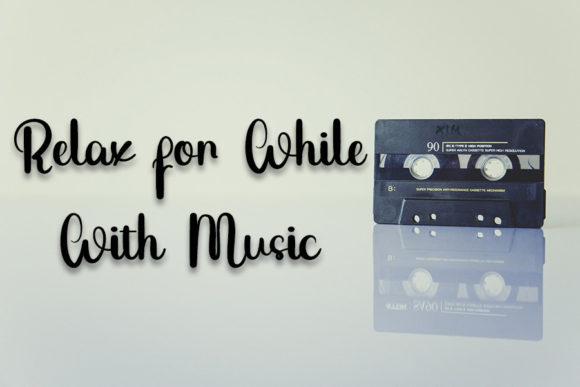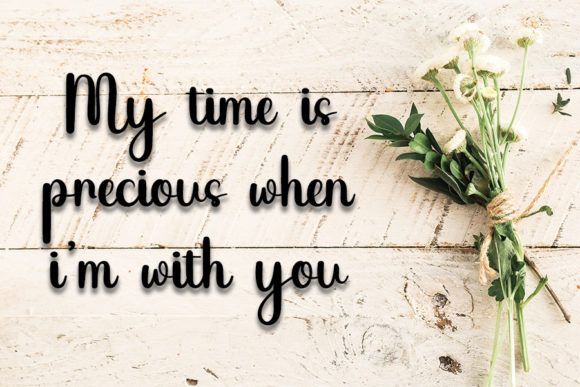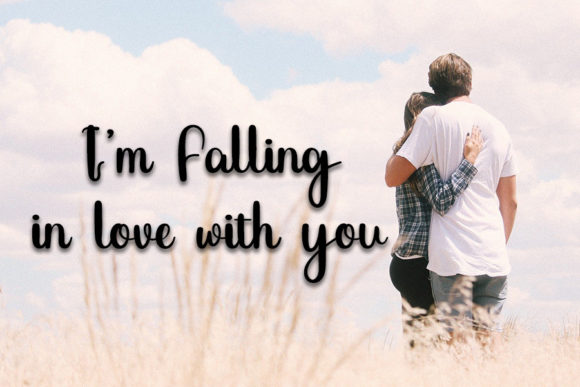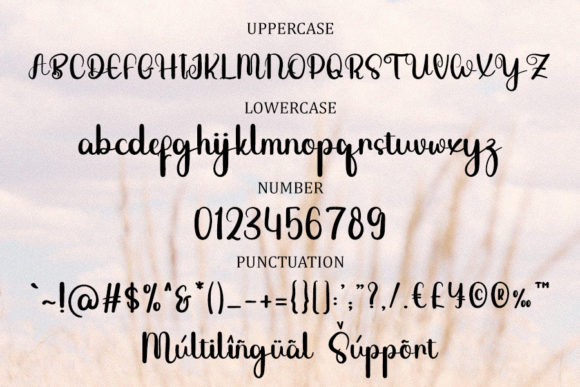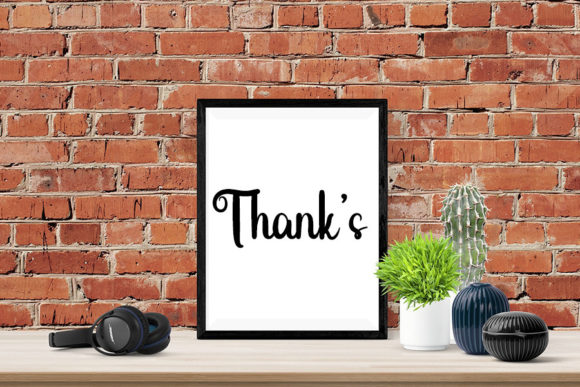
Introduction to Photo Frame Font
Photo Frame is a playful and smart-looking handwritten font.
It is the ideal choice for creating eye-catching logos, branding, and quotes Every letter has a unique and beautiful touch, which will make your design come alive.
Key Features of Photo Frame Font
Why Choose Photo Frame Font?
Photo Frame Font offers exceptional quality and versatility, making it a valuable addition to your design toolkit. Whether you’re creating for personal projects or commercial use, Photo Frame Font delivers professional results.